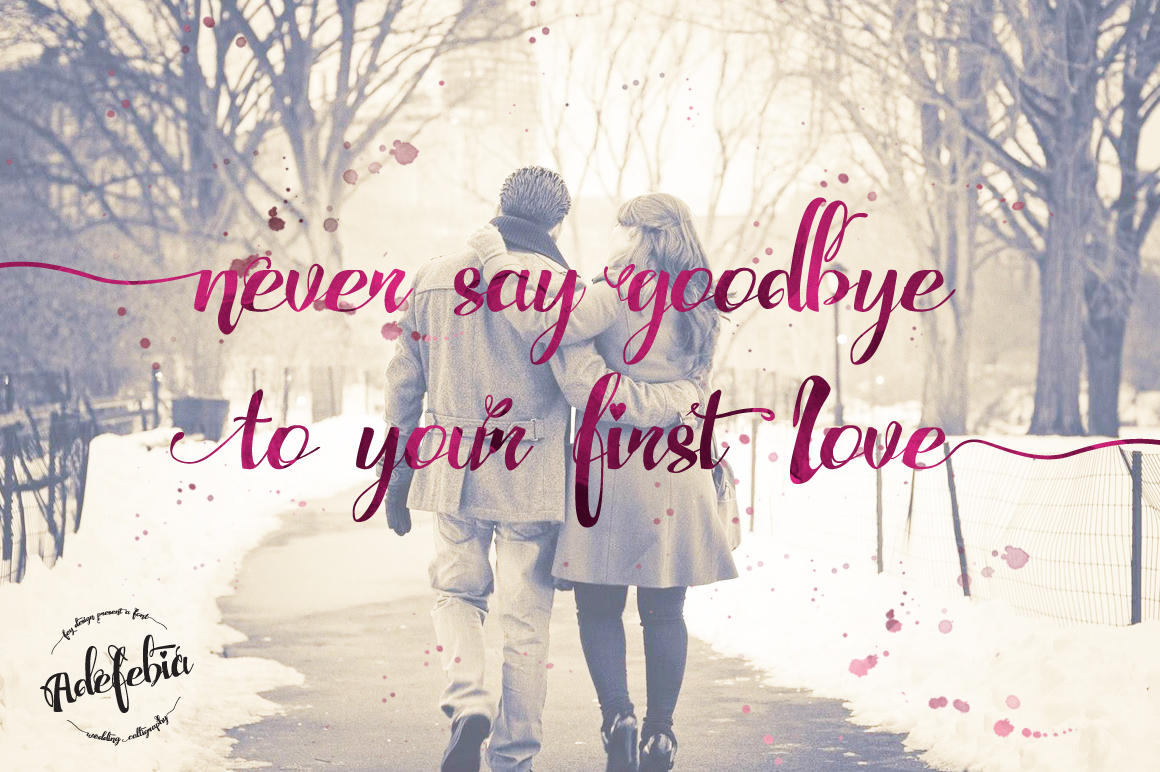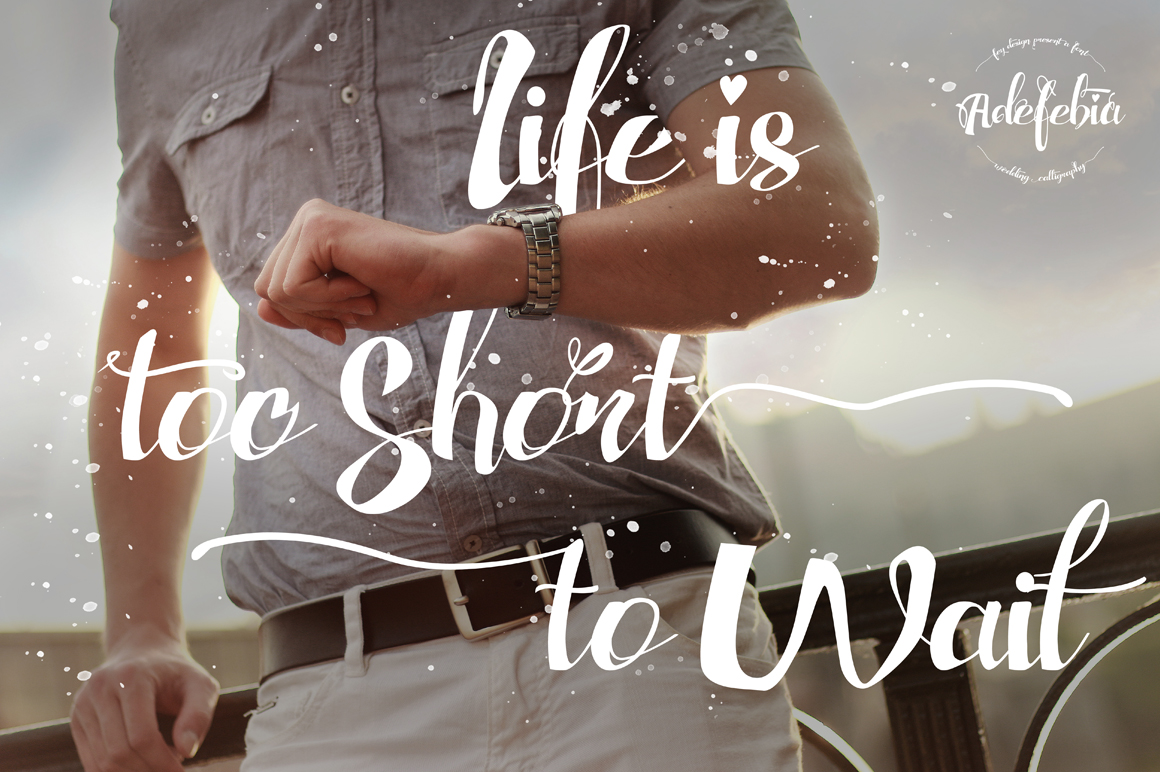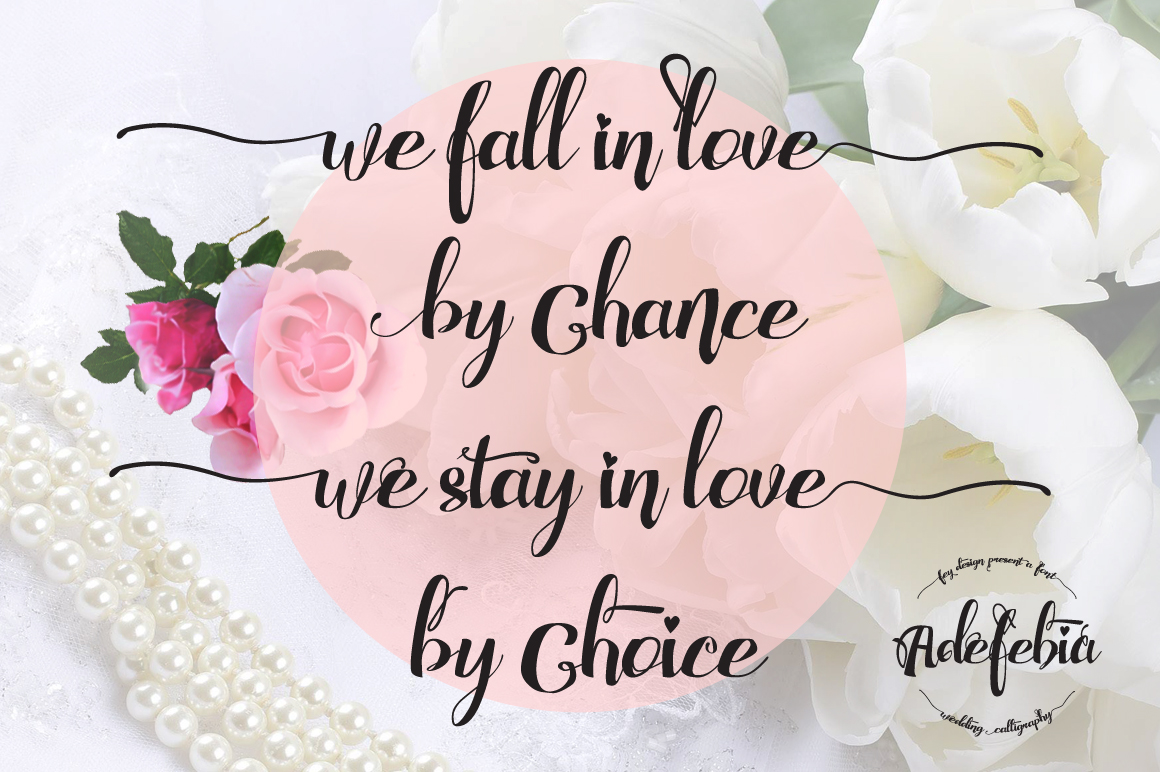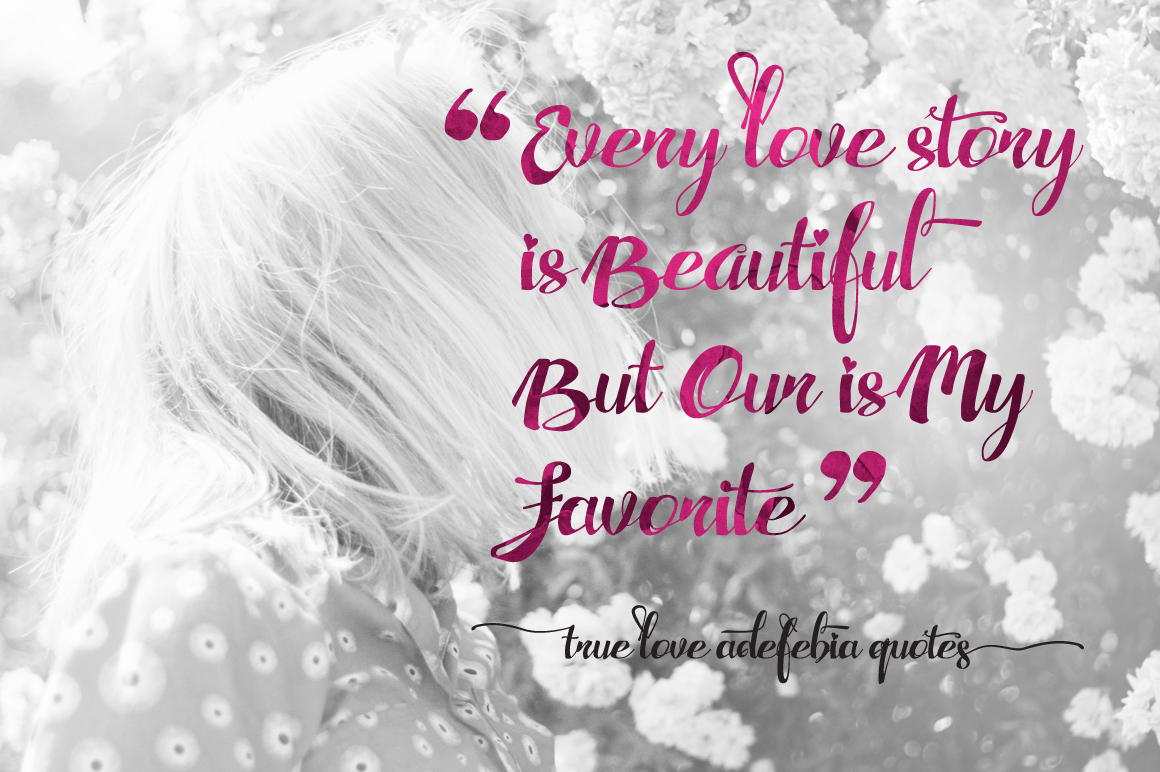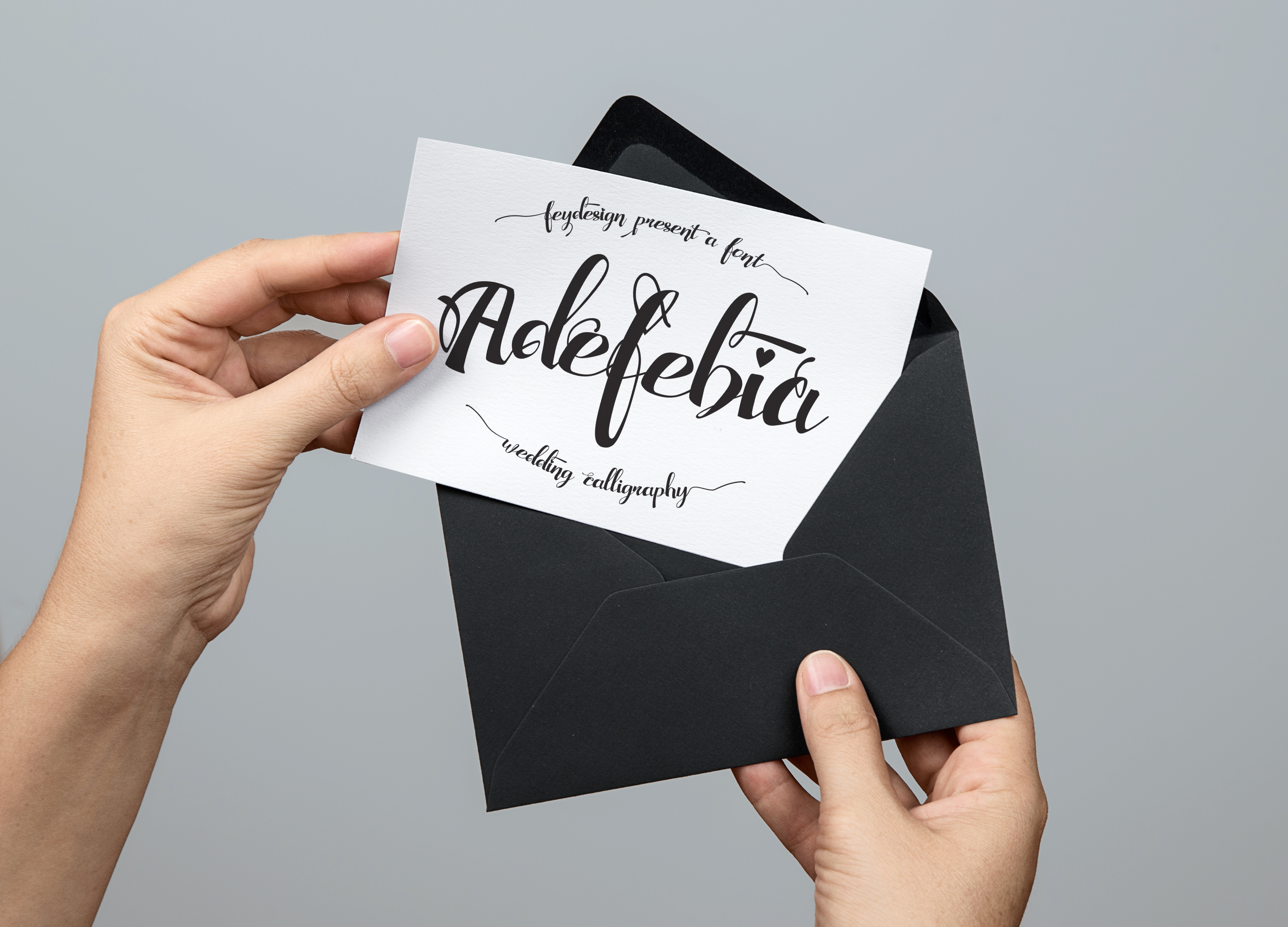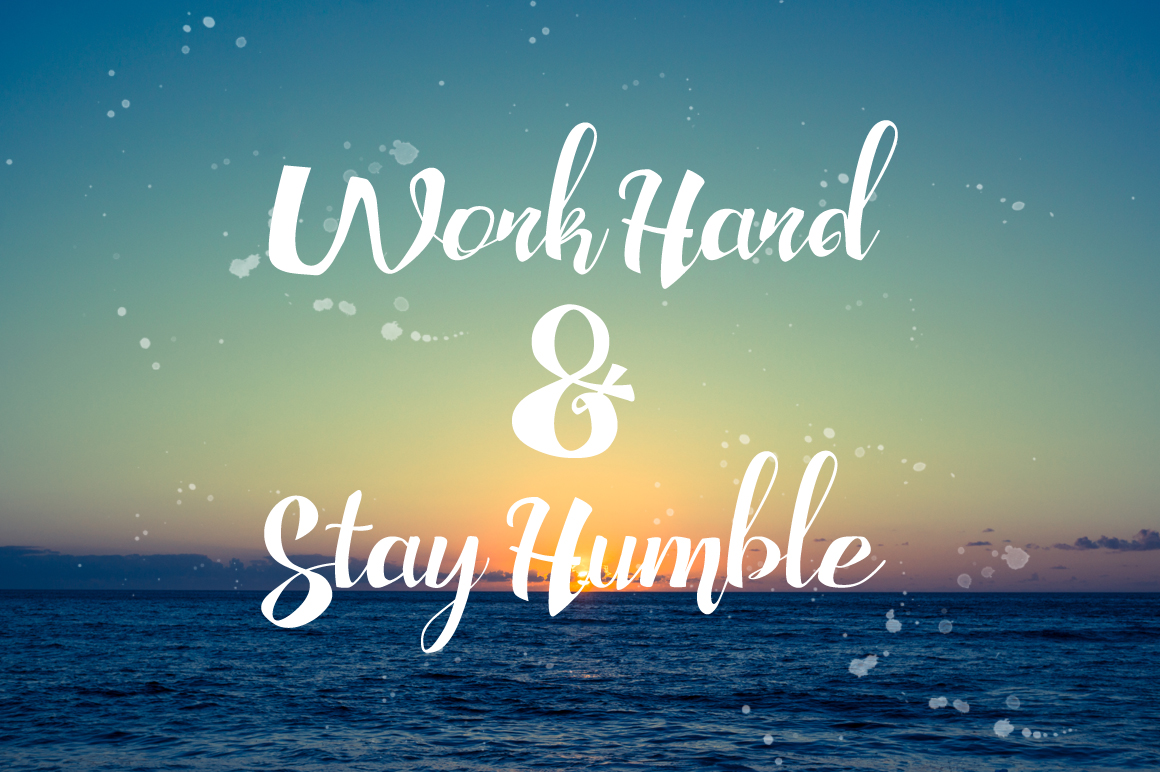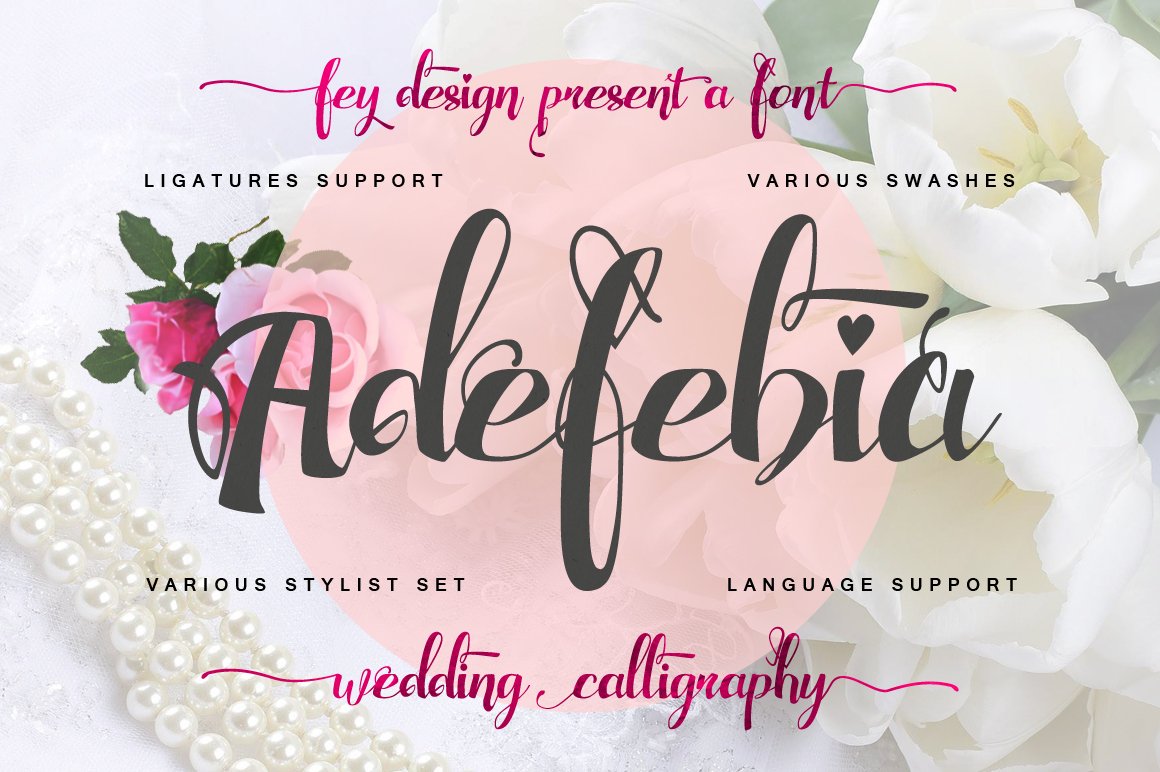
Love in Every Letter: The Story of Adefebia Font
There’s something magical about the moment you find the perfect font. It’s like stumbling upon a hidden treasure that makes all your design dreams come true. For graphic designers, this feeling is all too familiar, especially when working on wedding-related projects. The pressure to create something truly special and memorable is high, and the right font can make all the difference.
Enter Adefebia Font, a wedding-inspired script that exudes modern elegance and sophistication. This beautiful font is designed to capture the essence of love and commitment, making it the perfect choice for wedding invitations, stationery, and other special occasions. With its refined, calligraphic style, Adefebia Font is a valuable addition to any designer’s toolkit, offering endless possibilities for creative expression.
Adefebia Font Key Features
- Unique Characteristics: Adefebia Font features a unique blend of modern and traditional design elements, making it suitable for a wide range of applications, from business to creative projects.
Adefebia Font Review
I recently had the chance to work with the Adefebia Font, and I must say it was a mixed bag. Here are my honest thoughts:
- The Adefebia Font has a unique and quirky charm to it, making it perfect for creative projects or brands that want to stand out.
- The font is highly legible, even at smaller font sizes, which is a big plus for designers who need to ensure their text is readable.
- The font family includes a wide range of weights and styles, making it easy to find the perfect combination for your project.
- The Adefebia Font can be a bit overwhelming in large blocks of text, so it’s best used in moderation or in conjunction with other fonts.
- The font may not be the best choice for formal or professional projects, as it can come across as a bit too playful.
- The font family is not as extensive as some other popular font families, which may limit its versatility.
The Adefebia Font is a fun and quirky font that’s perfect for creative projects or brands that want to stand out. While it has some limitations, it’s a great addition to any designer’s toolkit. With its unique charm and high legibility, it’s definitely worth considering for your next project.
Getting the Most Out of Adefebia Font
For optimal results, use Adefebia font in conjunction with high-quality images and design elements.
Experiment with different font sizes, colors, and styles to create visually appealing designs.
Adefebia font is ideal for use in modern, minimalist designs, such as business cards, logos, and marketing materials.
Adefebia font is commonly used in:
Business cards and logos
Marketing materials and brochures
Websites and e-commerce platforms
Infographics and data visualizations